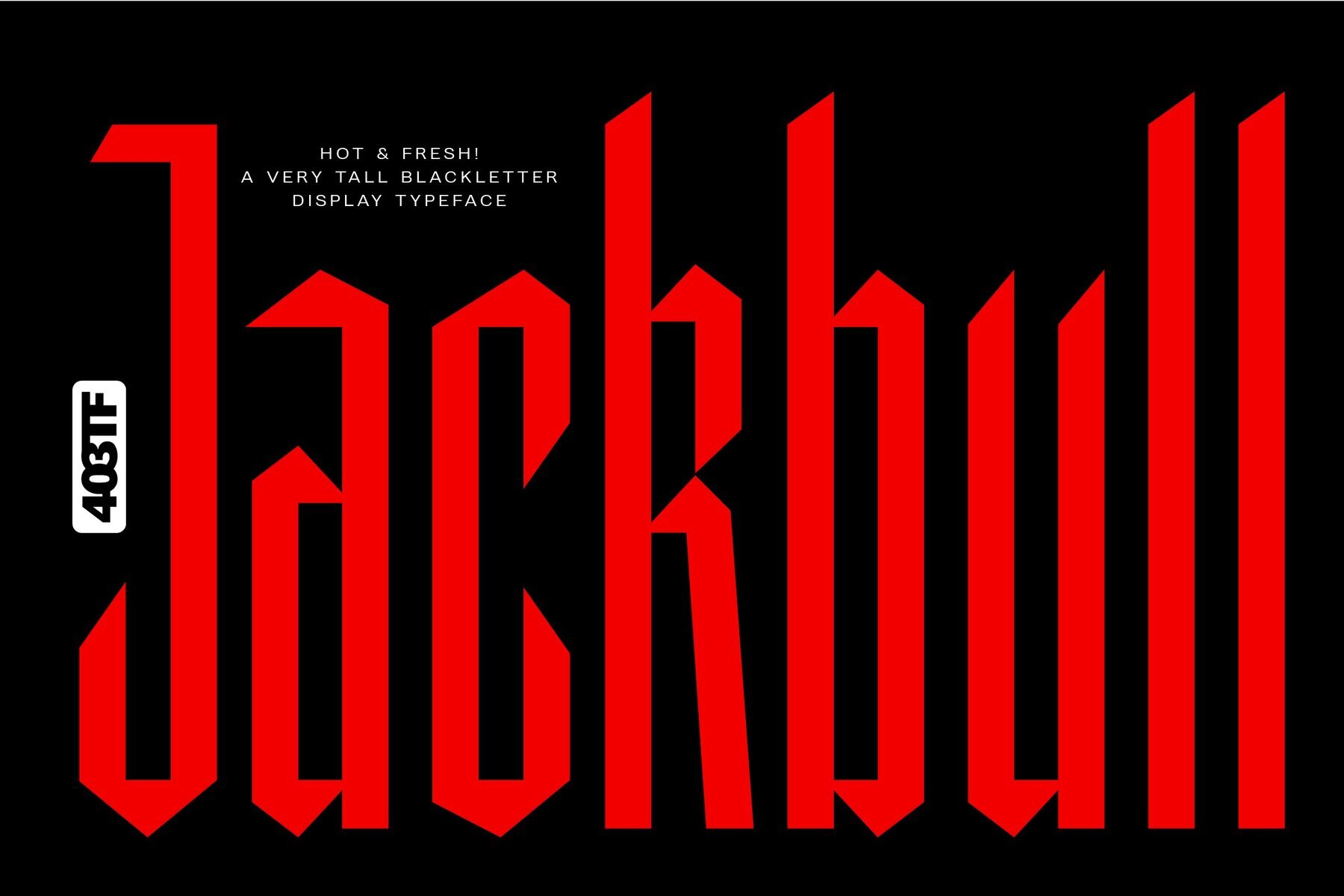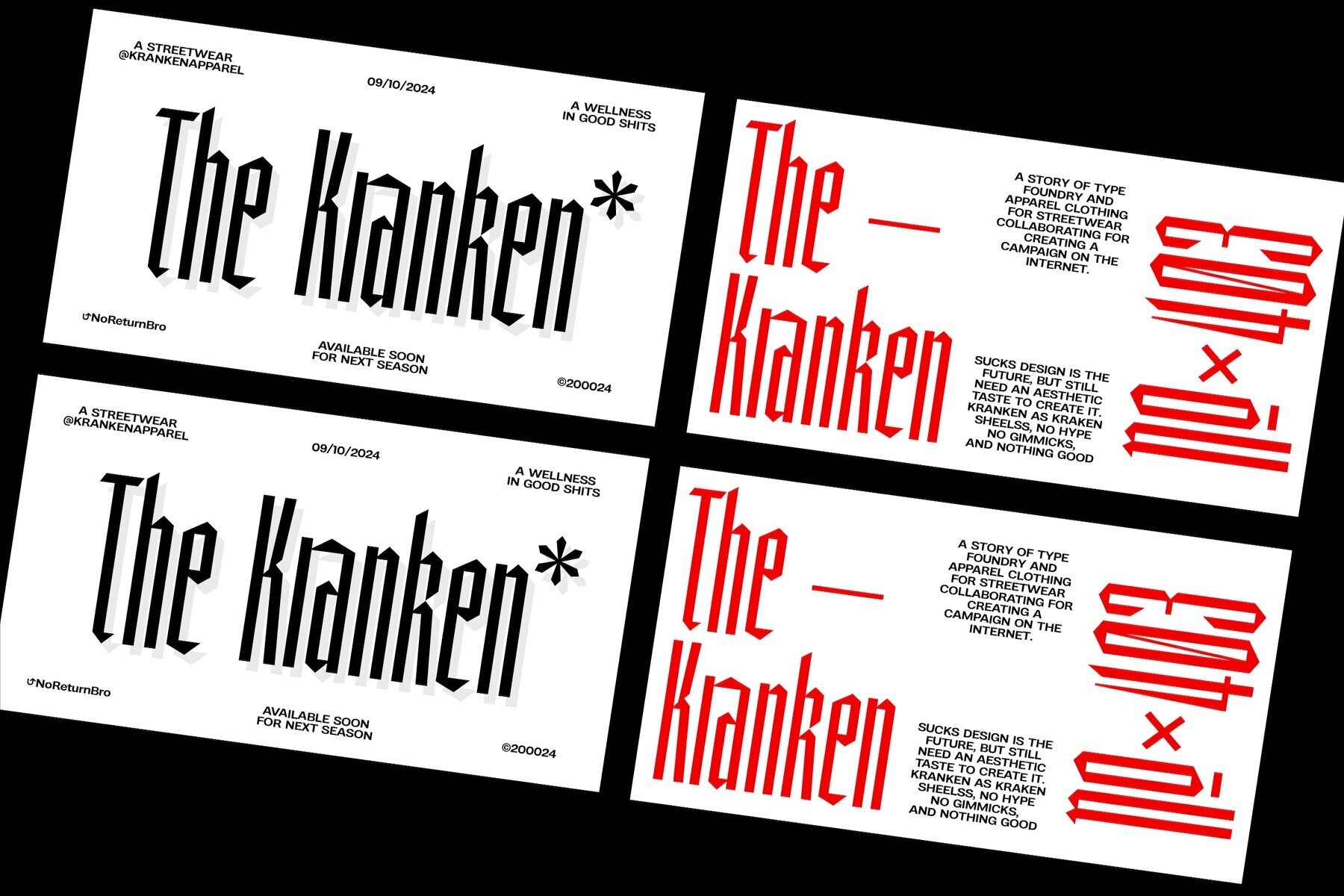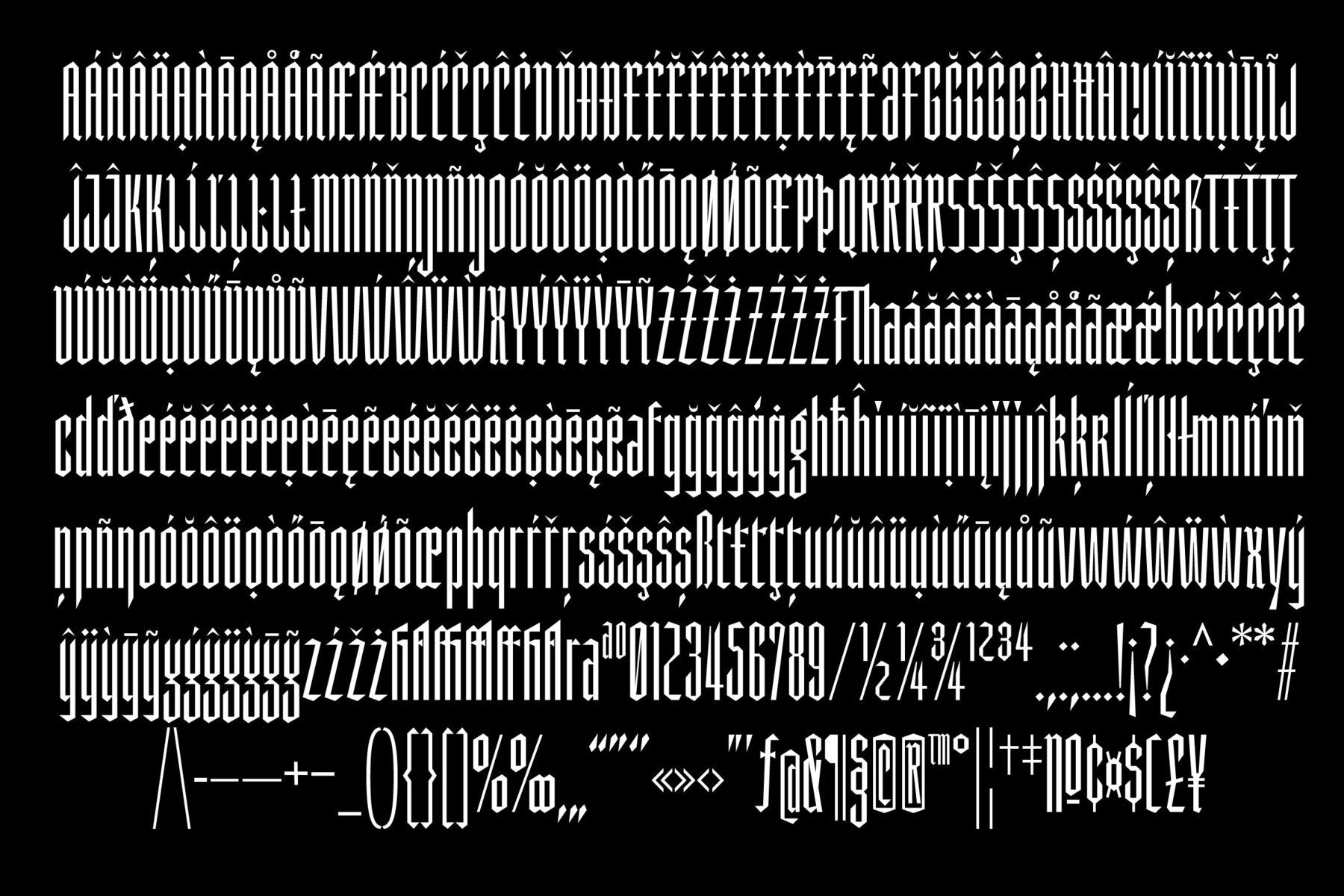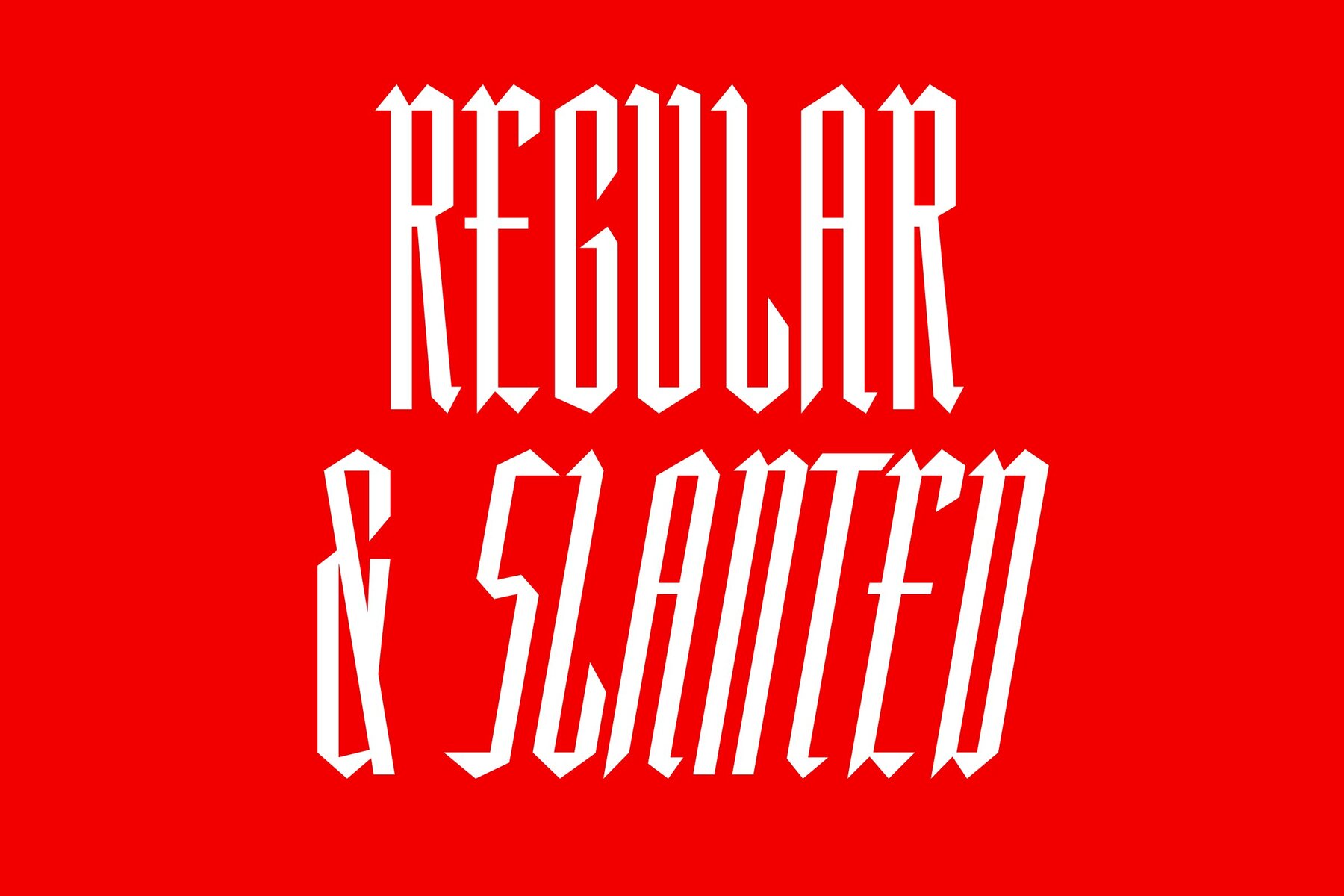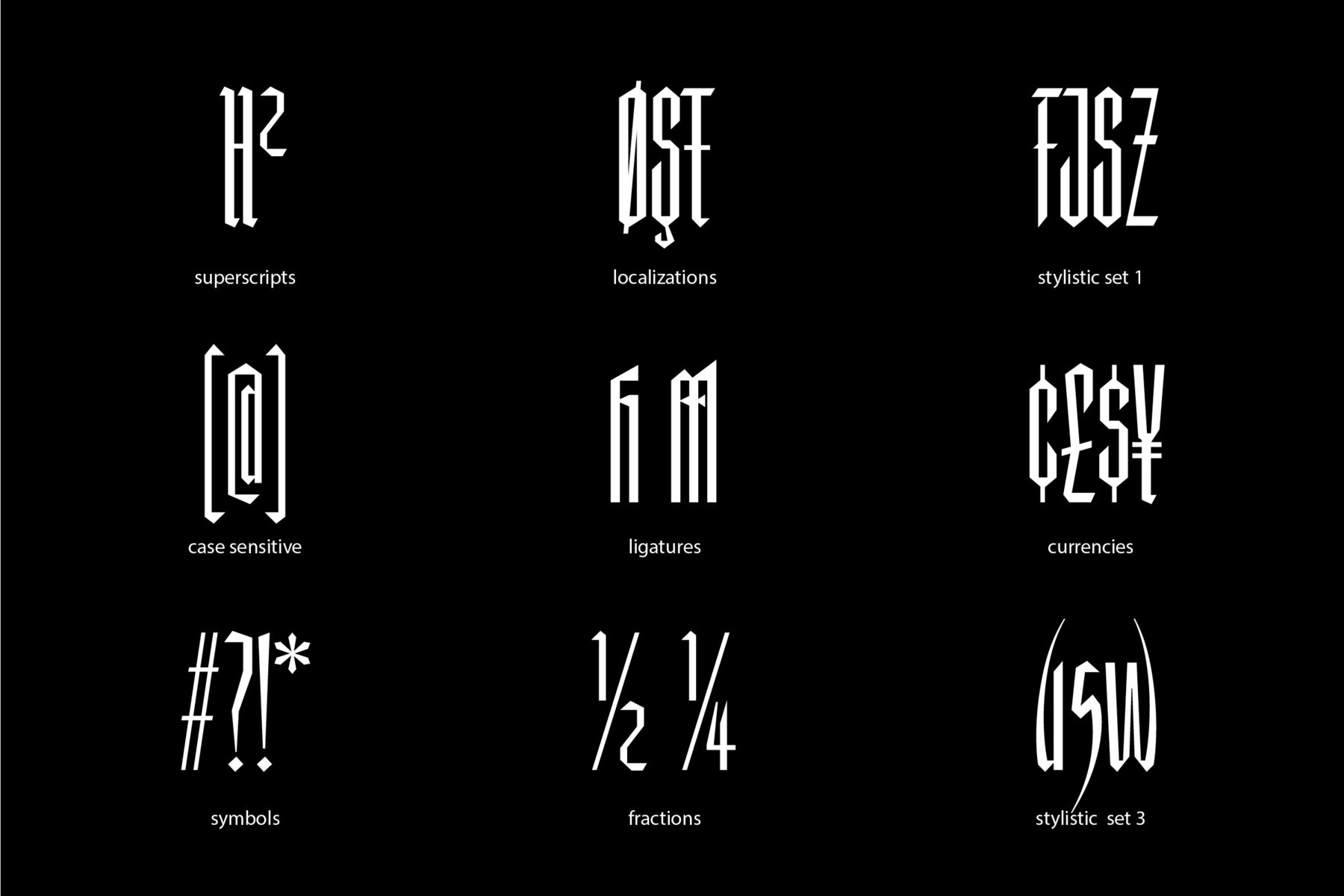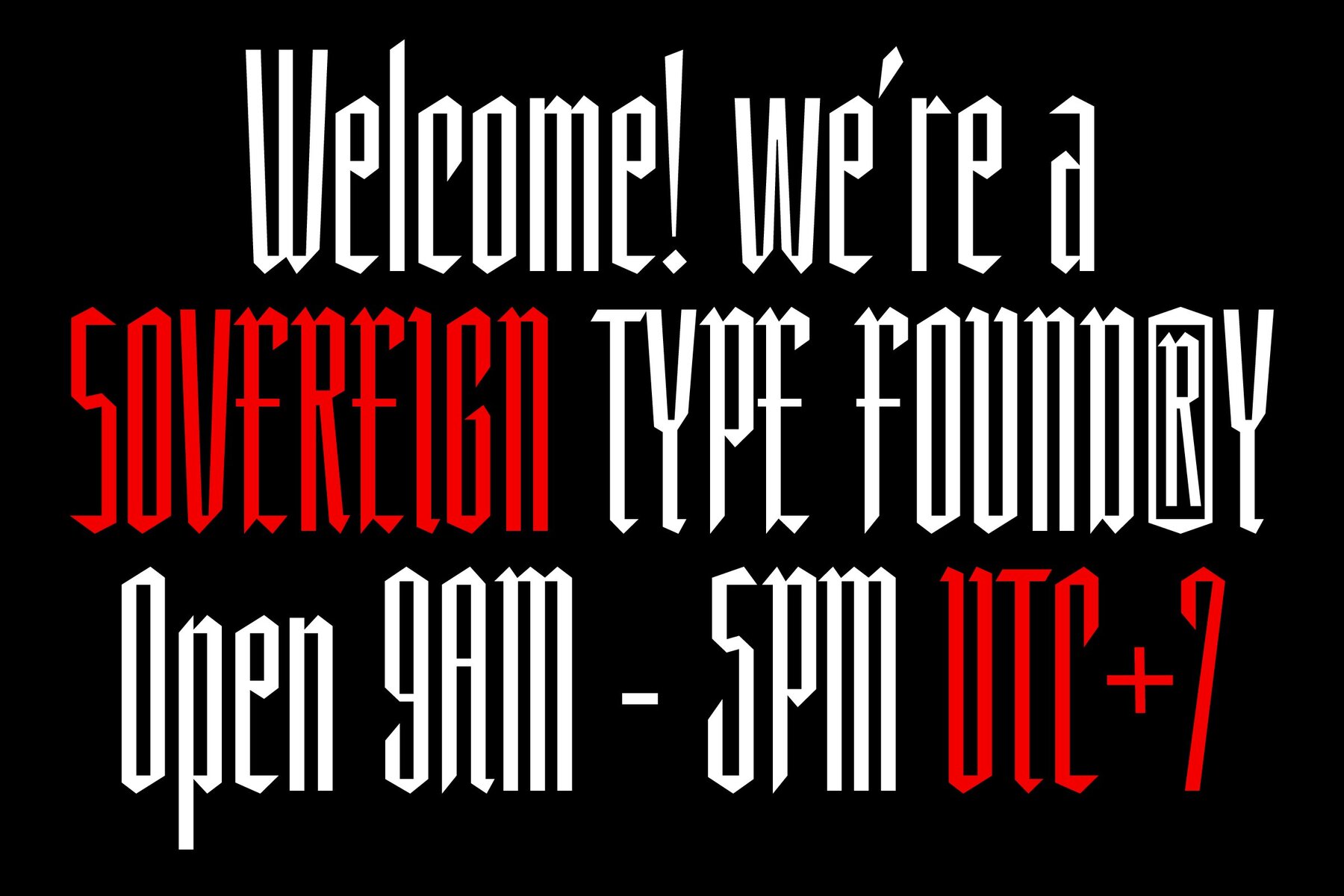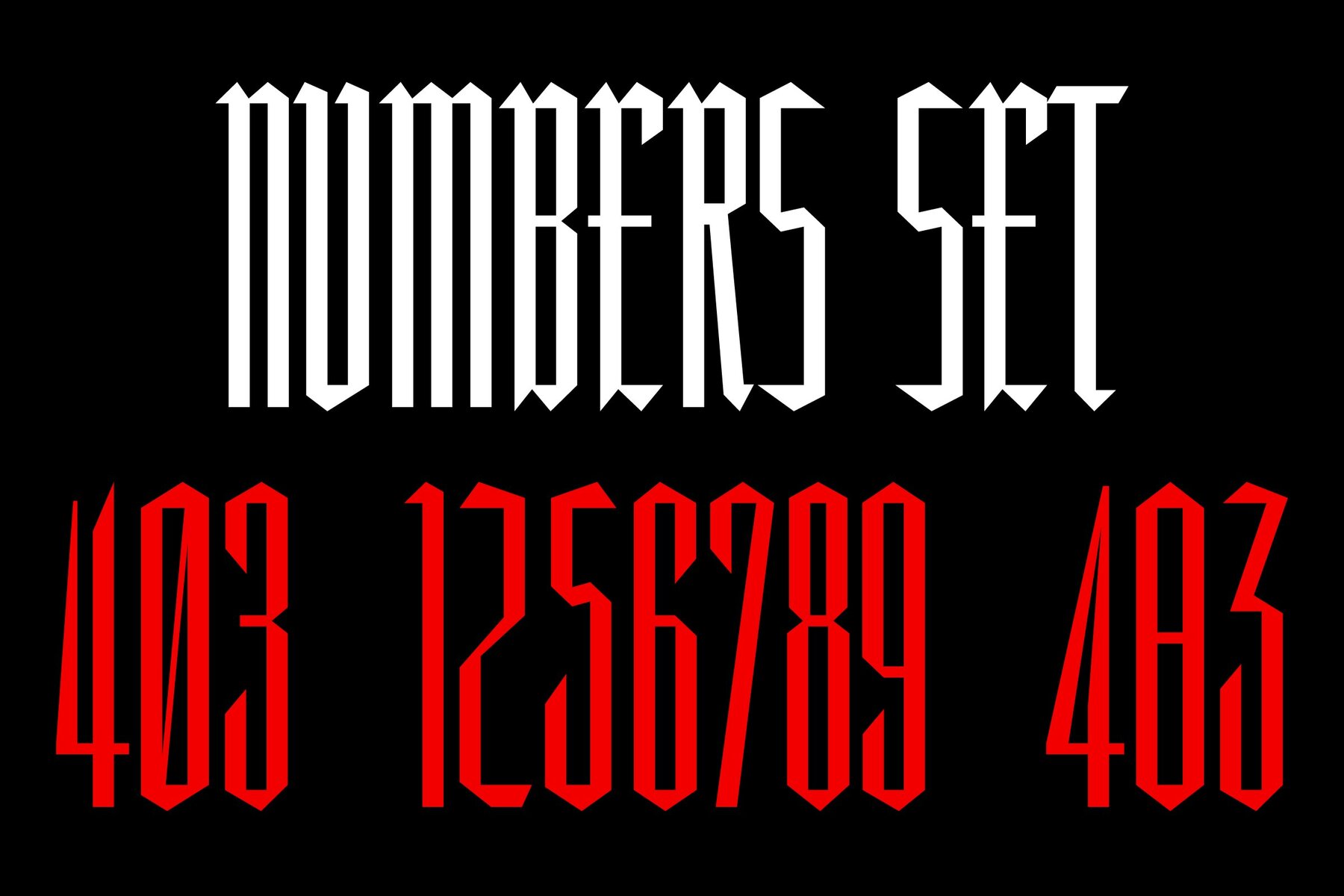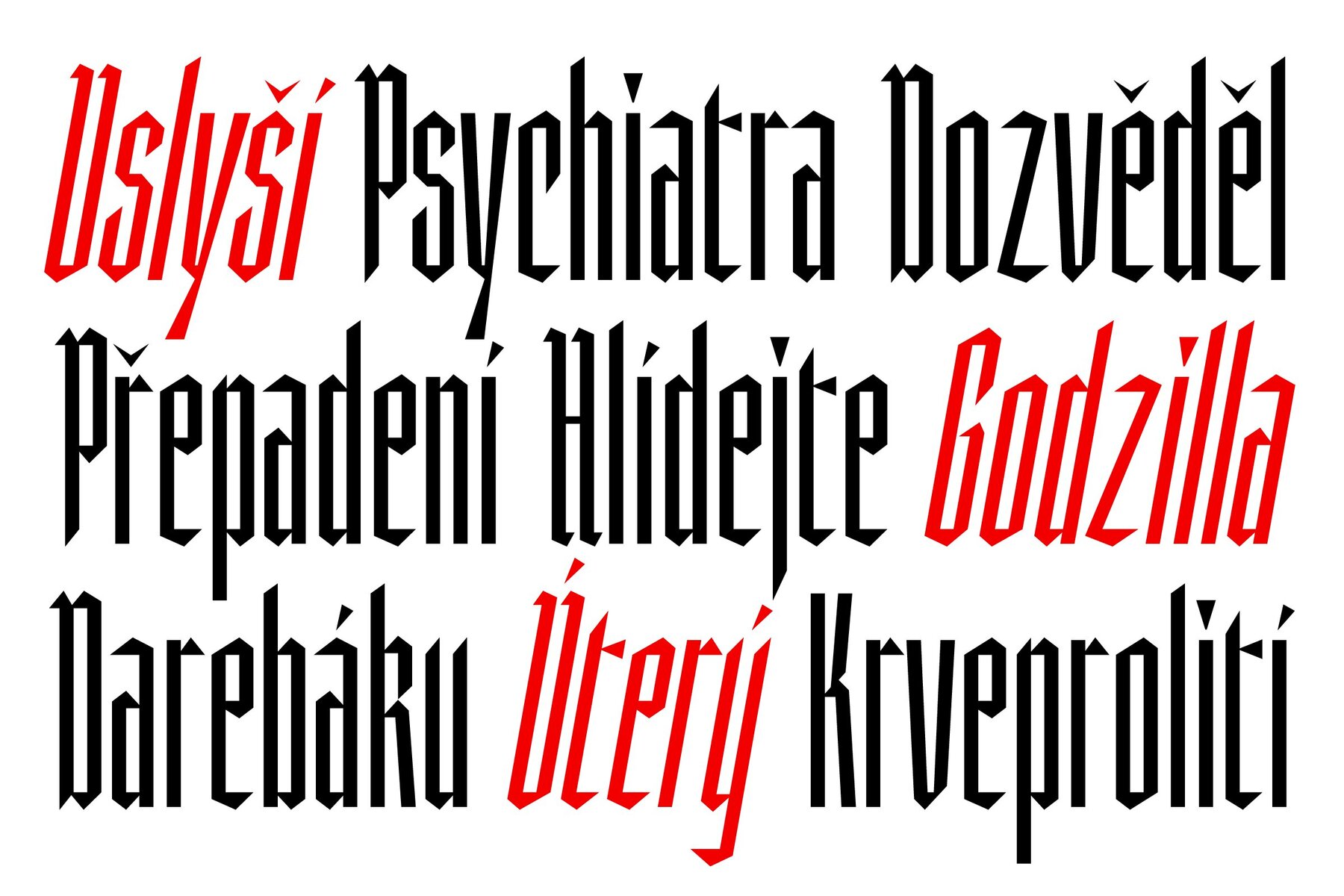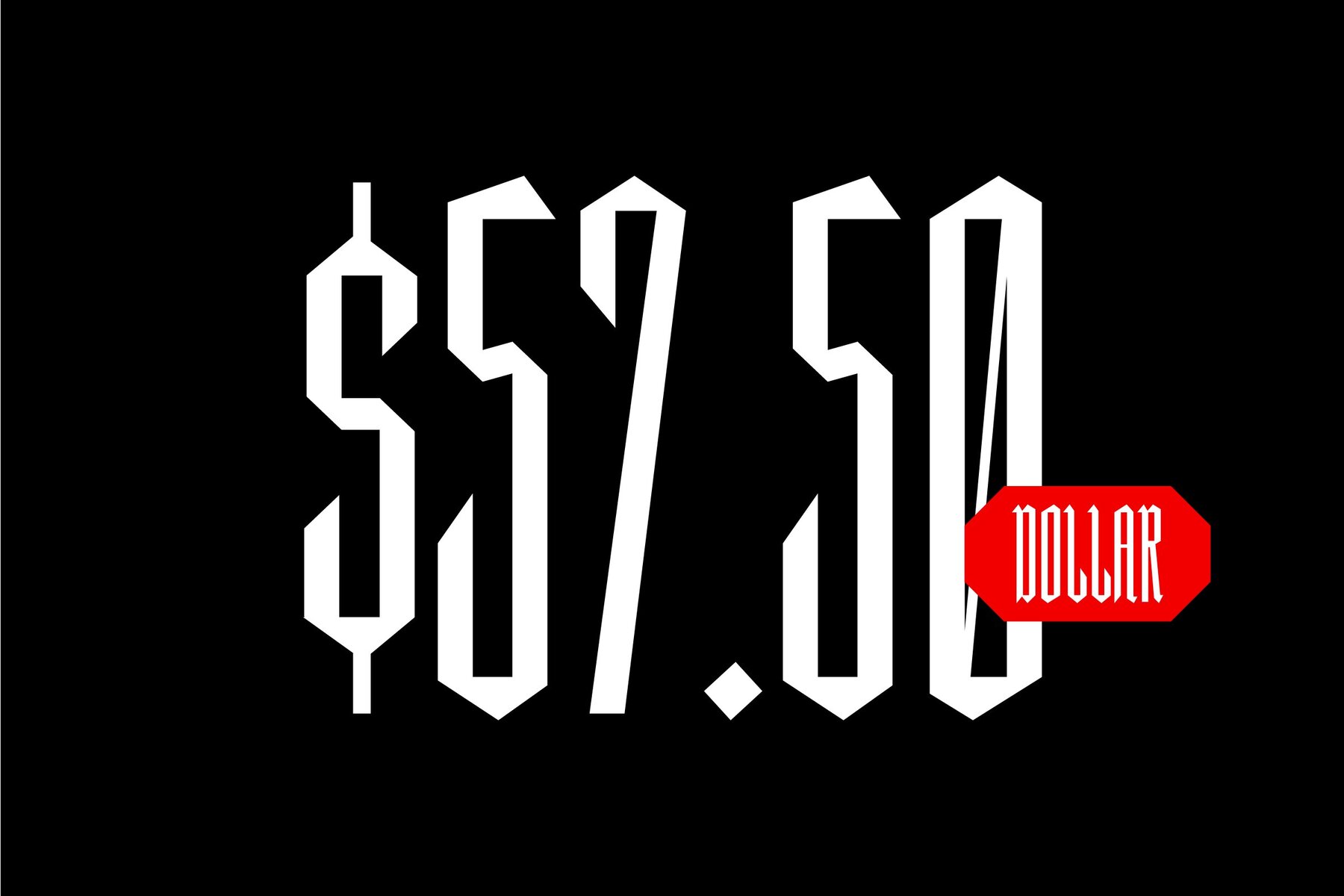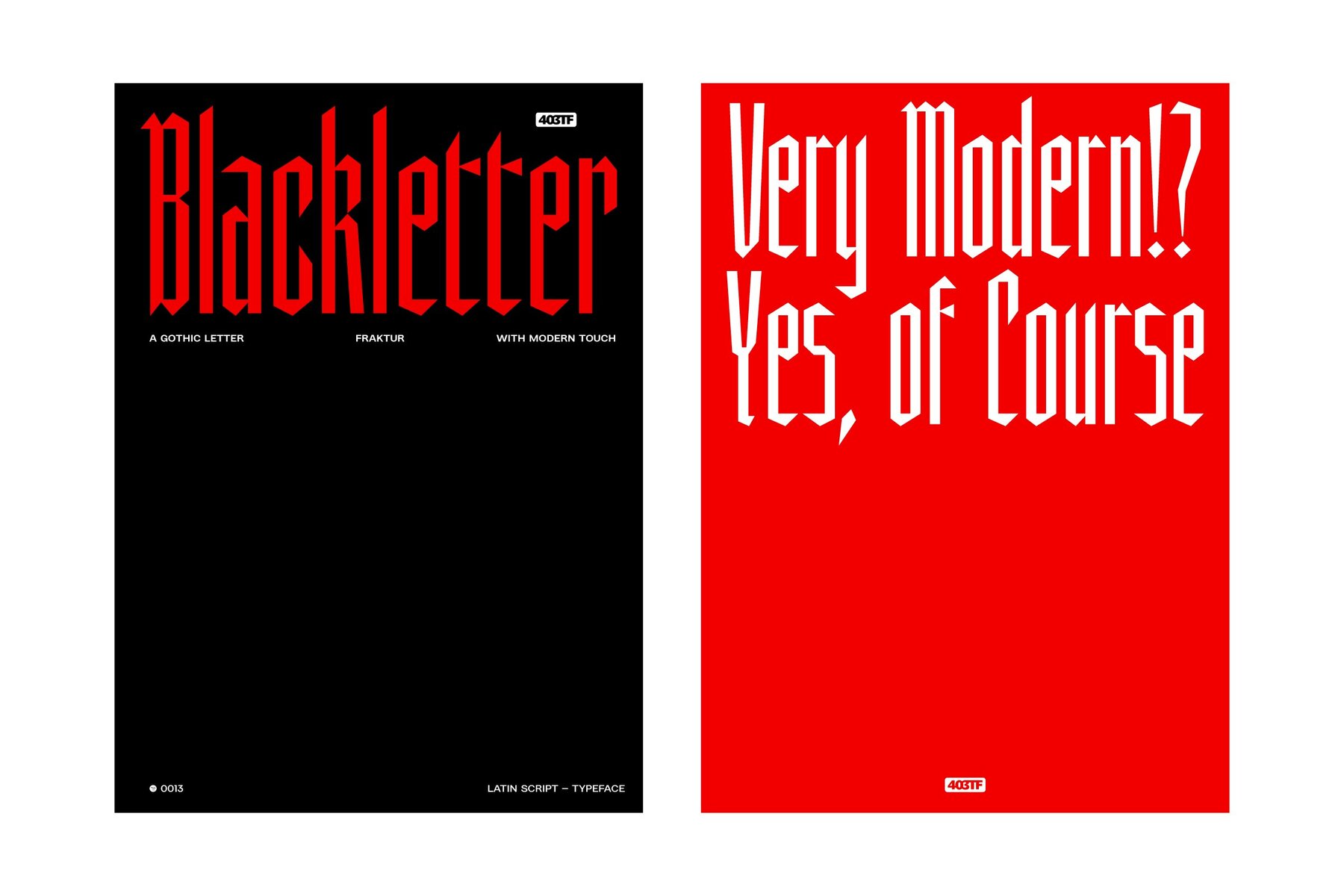
Presenting 403 Jackbull, an eye-catching display typeface that blends contemporary vintage flair with the bold complexities of blackletter. With its Textura roots, this towering Fraktur font is eye-catching and ideal for making a statement.
It supports multilingual characters, comes in Regular and Slanted styles, and provides stylistic sets and ligatures to help you express your creativity with typography. Remember that size counts. For headlines, posters, and any other project where you want to make an impression, 403 Jackbull works best at 72 points and up to preserve its fine details and legibility.